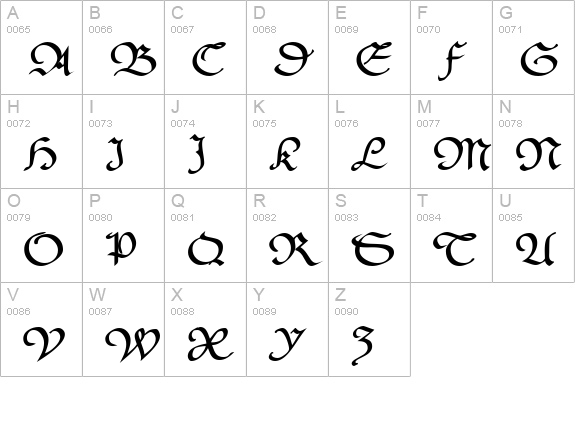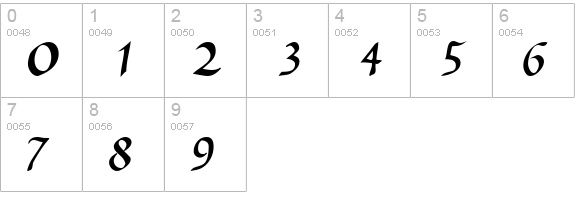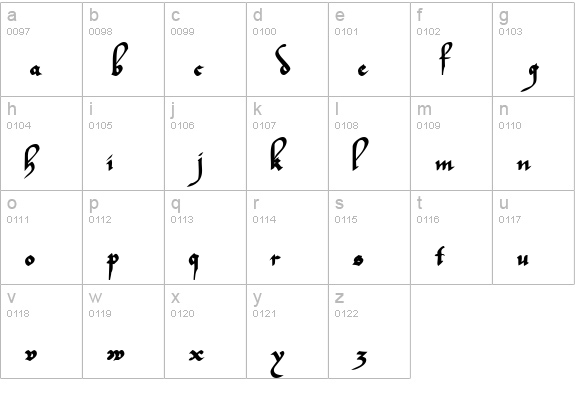
BucheSSK Bold is a strong, high-contrast variant in the BucheSSK typeface family \xE2\x80\x94 well suited to headlines, attention-grabbing titles, and strong calls-to-action.
BucheSSK Bold is a striking and modern font that exudes confidence and sophistication. With its bold and impactful design, BucheSSK Bold is perfect for adding a touch of elegance to any project. The strong lines and stylish curves of this font make it stand out in both print and digital media. What's even better is that BucheSSK Bold is available for free download at FontsMarket.com. This means you can easily access this stunning font to elevate your designs without any cost. Don't miss out on the opportunity to enhance your projects with the timeless appeal of BucheSSK Bold. Download it today and make a lasting impression with your typography choices.